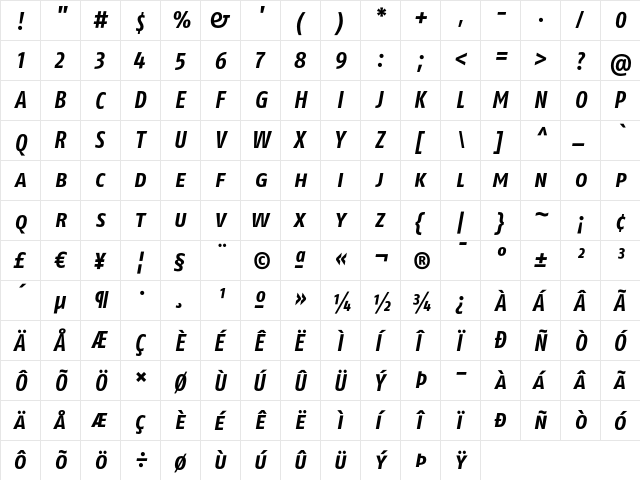
FagoCoBoldLf Regular
Design Context for FagoCoBoldLf Typeface
FagoCoBoldLf takes a measured approach to typography — its balanced proportions and neutral character make it a reliable workhorse for both digital and print work. The heavy weight commands attention and anchors typographic hierarchies.